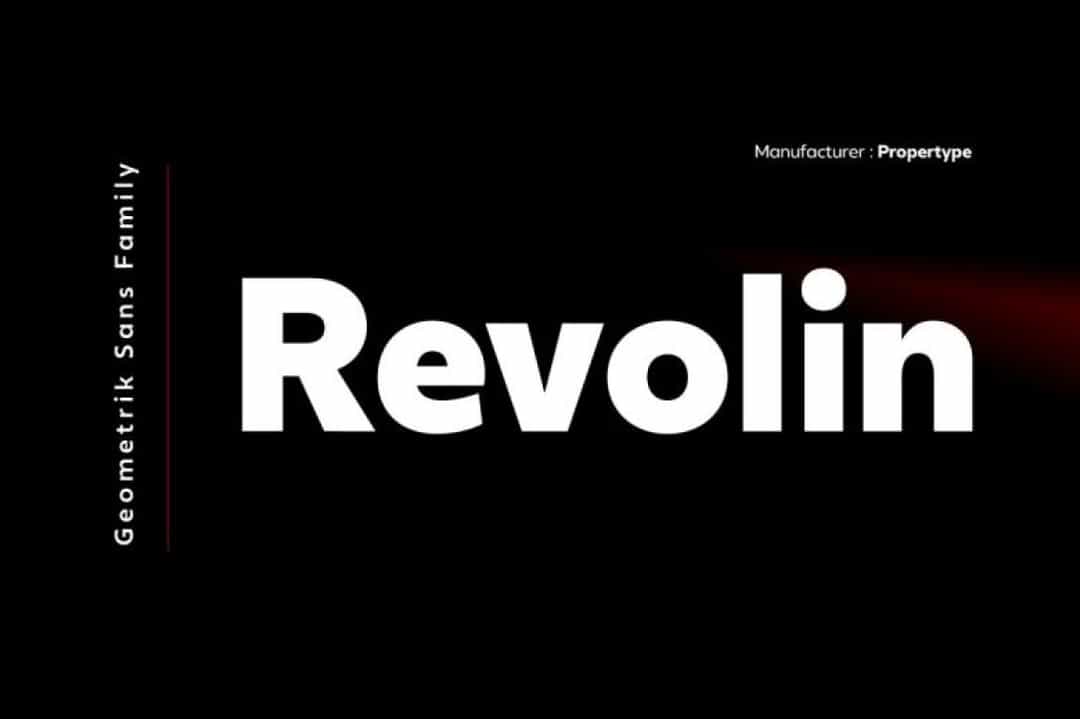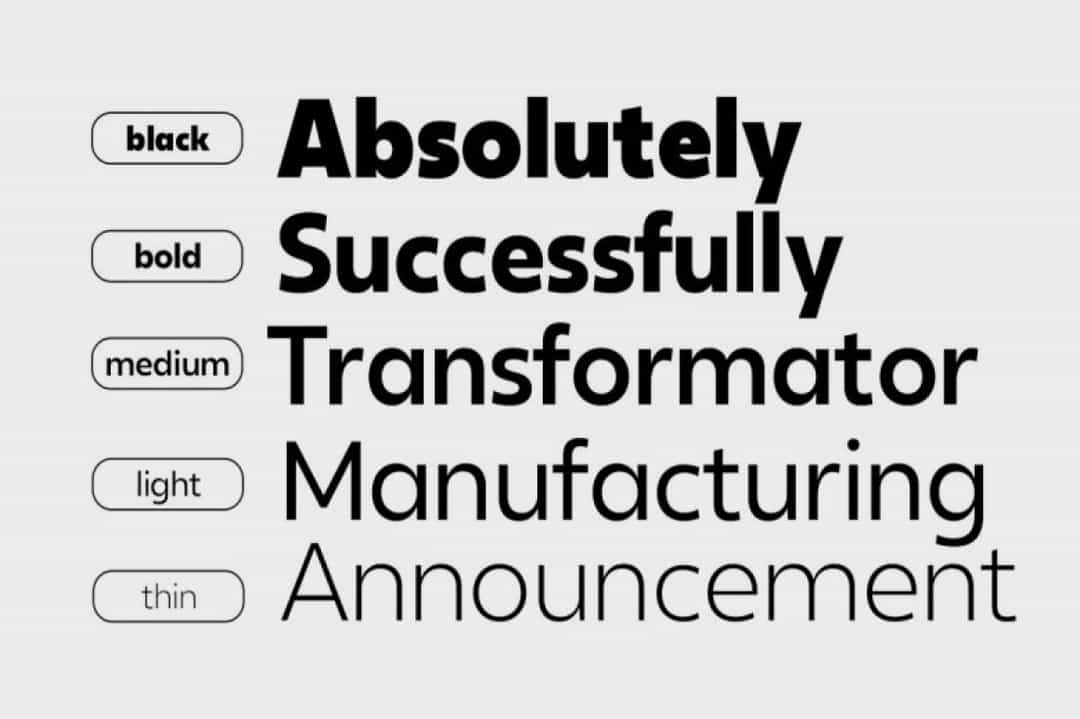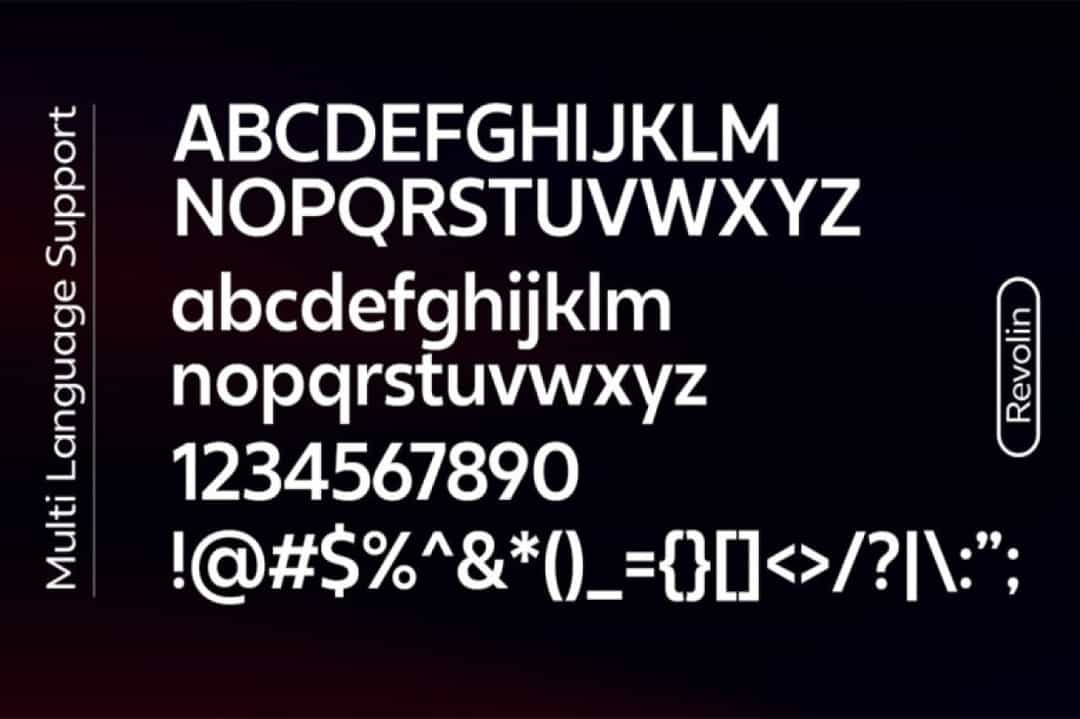
Revolin is a modern geometric sans serif font family with 18 styles to choose from. Solid geometric characters combine with modern sharp cuts for an elegant font with distinct character. Bold repeated forms create a rhythmic effect making Revolin highly noticeable and suitable for everyday use.